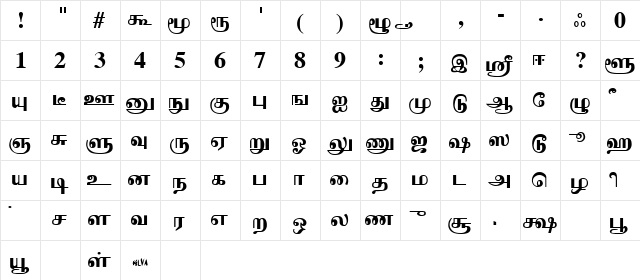
Cheithi Regular
Design Context for Cheithi Typeface
Cheithi is a composed and adaptable typeface that performs quietly and consistently across a wide range of design contexts.